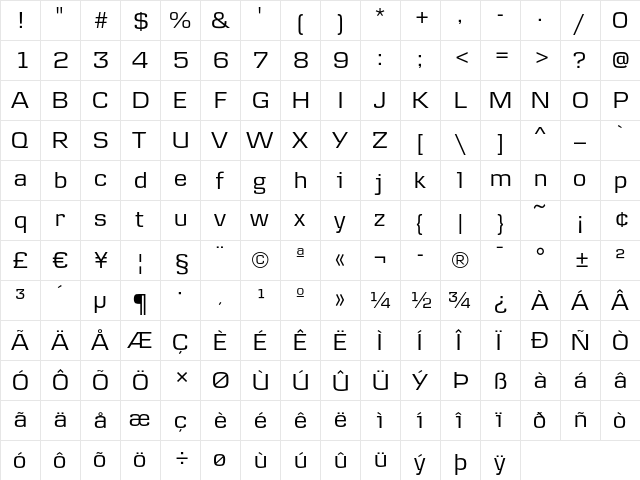
DanskeHeadlineRegular [BETA] Medium
Design Context for DanskeHeadlineRegular [BETA] Typeface
DanskeHeadlineRegular [BETA] offers clean, dependable letterforms without strong stylistic allegiance, making it a practical choice for designers who need flexibility.
Pro Tip: Pair DanskeHeadlineRegular [BETA] with a font of contrasting weight or personality to build a more expressive typographic hierarchy.